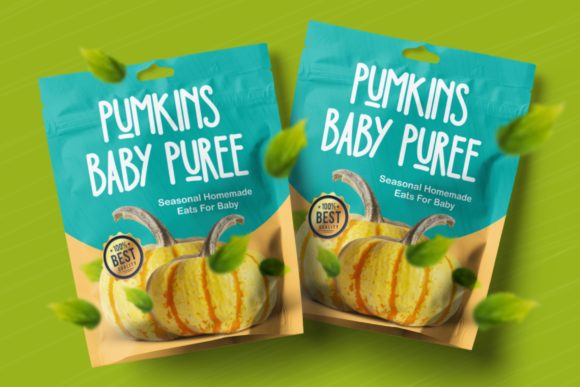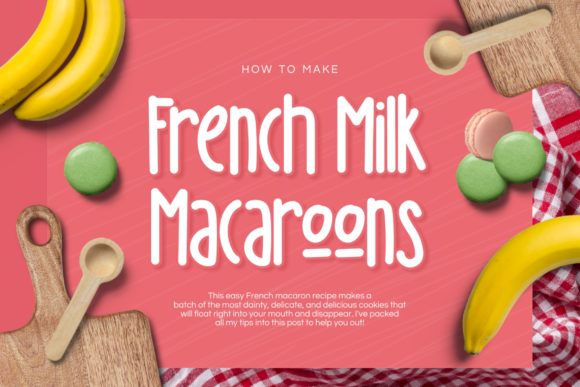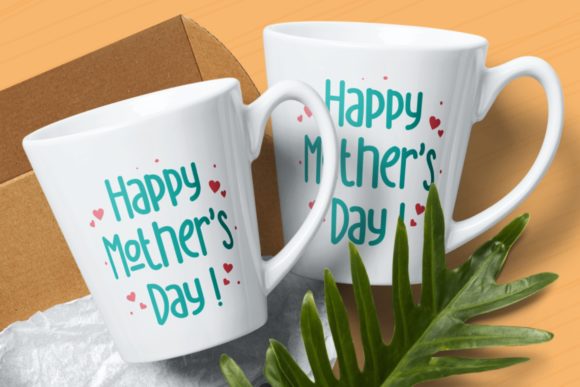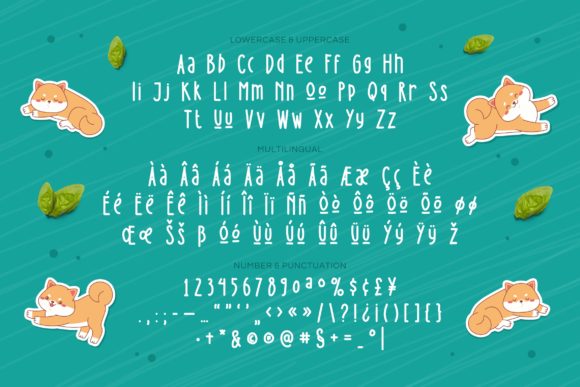
Introducing Dogiesland Font: The Playful and Cute Display Font for Kids’ Designs
Are you a designer or crafter looking for a fun and playful font to add a touch of whimsy to your children’s themed designs? Look no further than Dogiesland Font! This adorable display font is perfect for creating eye-catching and engaging designs that kids will love. In this article, we’ll take a closer look at Dogiesland Font, its features, and how you can use it to create amazing designs.
What is Dogiesland Font?
Dogiesland Font is a playful and cute display font designed specifically for children’s themed designs. Its unique and quirky style makes it perfect for adding a touch of fun and personality to your designs. Whether you’re creating posters, flyers, or social media graphics, Dogiesland Font is sure to make your designs stand out.
Key Features of Dogiesland Font
- Playful and Cute: Dogiesland Font has a playful and cute style that’s perfect for kids’ designs.
- Display Font: This font is designed as a display font, making it perfect for headlines, titles, and short text.
- Children’s Themed: Dogiesland Font is specifically designed for children’s themed designs, making it perfect for kid’s parties, nursery decor, and more.
- Bright and Bold: This font looks amazing when paired with bright and bold colors, making it perfect for creating eye-catching designs.
How to Use Dogiesland Font
Design Ideas Using Dogiesland Font
Here are some design ideas to get you started with Dogiesland Font:
- Kids’ Party Invitations: Create fun and playful invitations for kids’ parties using Dogiesland Font.
- Nursery Decor: Use Dogiesland Font to create adorable nursery decor, such as wall art and decals.
- Children’s Book Titles: Use Dogiesland Font to create eye-catching titles for children’s books.
- Kids’ Clothing and Accessories: Use Dogiesland Font to create fun and playful designs for kids’ clothing and accessories.
Tips and Tricks for Using Dogiesland Font
Here are some tips and tricks to help you get the most out of Dogiesland Font:
- Experiment with Colors: Don’t be afraid to experiment with different colors and color combinations to find the perfect look for your design.
- Use with Other Fonts: Consider pairing Dogiesland Font with other fonts to create a unique and interesting look.
- Keep it Simple: Keep your design simple and easy to read, especially when using a playful font like Dogiesland.
Dogiesland Font is a playful and cute display font that’s perfect for kids’ designs. With its unique and quirky style, it’s sure to add a touch of fun and personality to your designs. Whether you’re a designer or crafter, Dogiesland Font is a great addition to your font collection. So why not give it a try and see what amazing designs you can create?